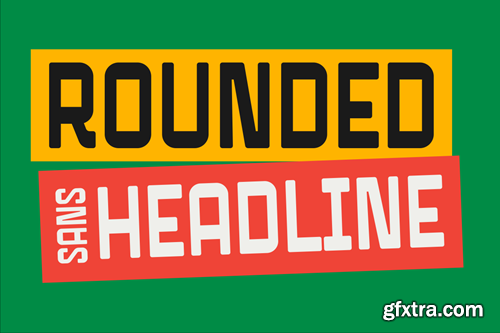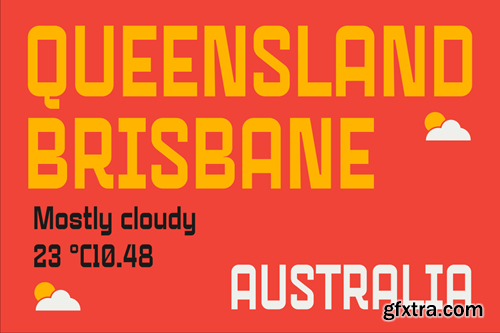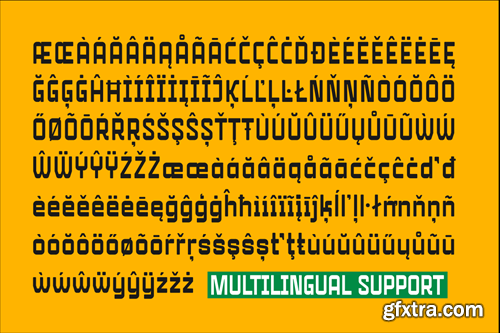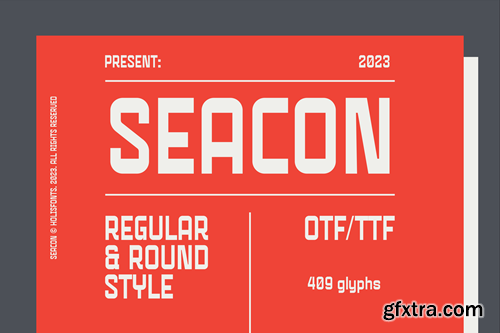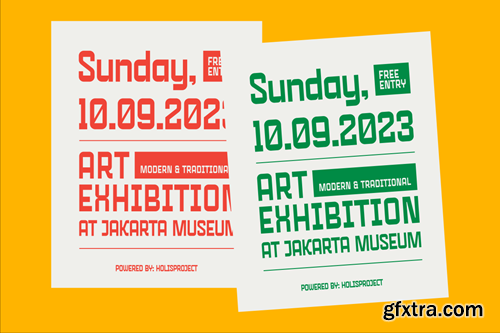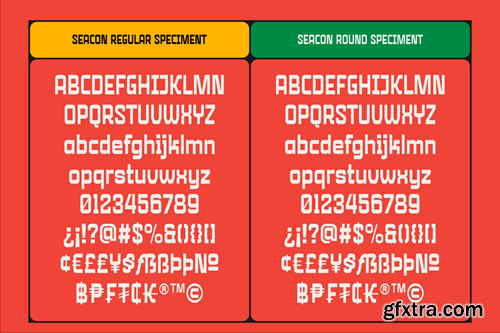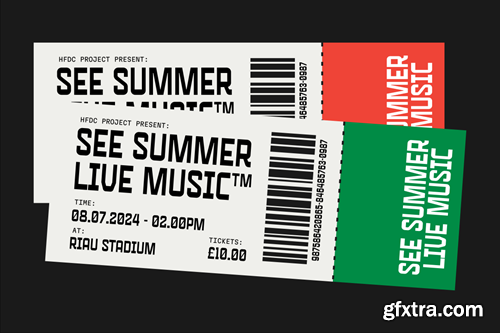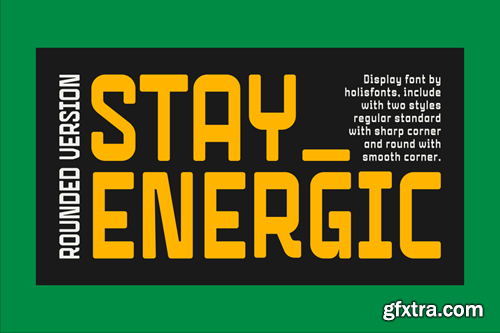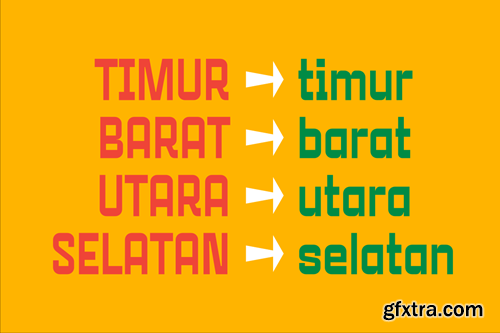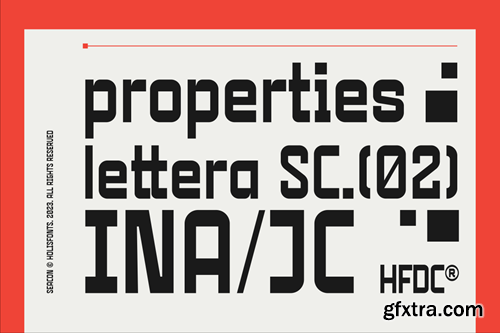
Seacon Headline Bold Font BA5SSME
Seacon Headline Bold Font
Seacon inspired by a bold, classic retro font which is suitable for use as a title or headline on a poster or logo and presentation, or as a signboard in your offline shop. This font is available in 2 styles Regular and Round.